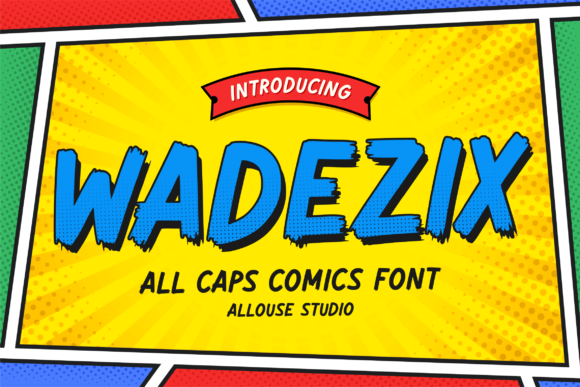
Wadezix Font: A Retro-Inspired Brushstroke Masterpiece
Unleash your creativity and embark on a nostalgic journey with Wadezix, the captivating brush font that oozes individuality and retro charm. As a display font, Wadezix thrives in the spotlight, transforming ordinary designs into captivating masterpieces.
Picture this: You're crafting a cartoon title that demands attention, a captivating poster that transports viewers to a bygone era, or a logo that exudes a playful, vintage vibe. Wadezix is your secret weapon, seamlessly blending the allure of the past with the freshness of the present.
Wadezix possesses an undeniable allure that transcends time. Its bold strokes evoke a sense of nostalgia, while its playful curves add a touch of whimsy. The result is a font that resonates with audiences of all ages, evoking memories and sparking imaginations.
With Wadezix at your fingertips, you'll effortlessly craft designs that stand out from the crowd. Whether you're a seasoned designer or just starting, Wadezix's user-friendly charm makes it a joy to use. Unleash your creativity and let the retro vibes flow, knowing that Wadezix will elevate your creations to new heights.